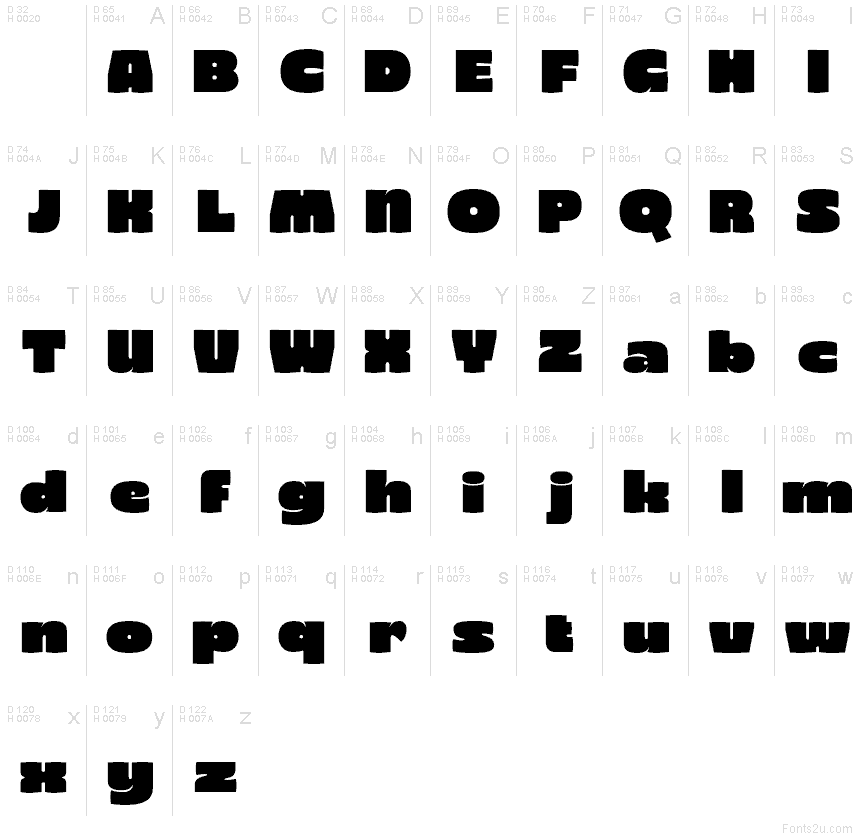
CS Monday Regular Demo
CS Monday font by Craft Supply Co. is a free bold rounded display sans serif font. Built around big, pillowy curves and chunky, even strokes, it has a soft, almost rubbery feel that still lands with confident weight. The tight spacing and generous bowls create a bouncy rhythm that reads loud and friendly without looking sloppy.
Using CS Monday, your headlines snap with warmth—great for posters, packaging, kids’ branding, café menus, stickers, event flyers, and social media graphics. This free font shines at larger sizes where its glossy, scooped curves can breathe; pair it with a light geometric sans for body copy to keep the spotlight on its playful heft.